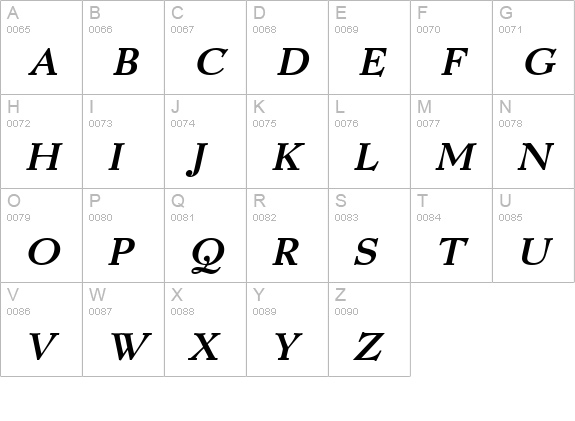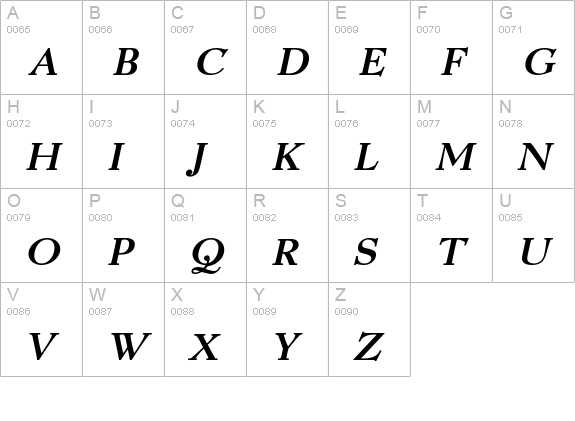
Introducing Luciano BoldItalic font - a bold and stylish typeface that exudes confidence and sophistication. With its distinctive italicized design, Luciano BoldItalic adds a touch of elegance to any project or design. This versatile font is perfect for creating eye-catching headlines, logos, branding materials, and more. What's even better is that Luciano BoldItalic is available for free download at FontsMarket.com. Yes, you read that right - this premium font can be yours at no cost! Simply head over to FontsMarket.com to access this stunning font and elevate your designs with its bold and dynamic presence. Don't miss out on this incredible opportunity to enhance your creative projects with Luciano BoldItalic. Download it for free today and unleash your creativity like never before!